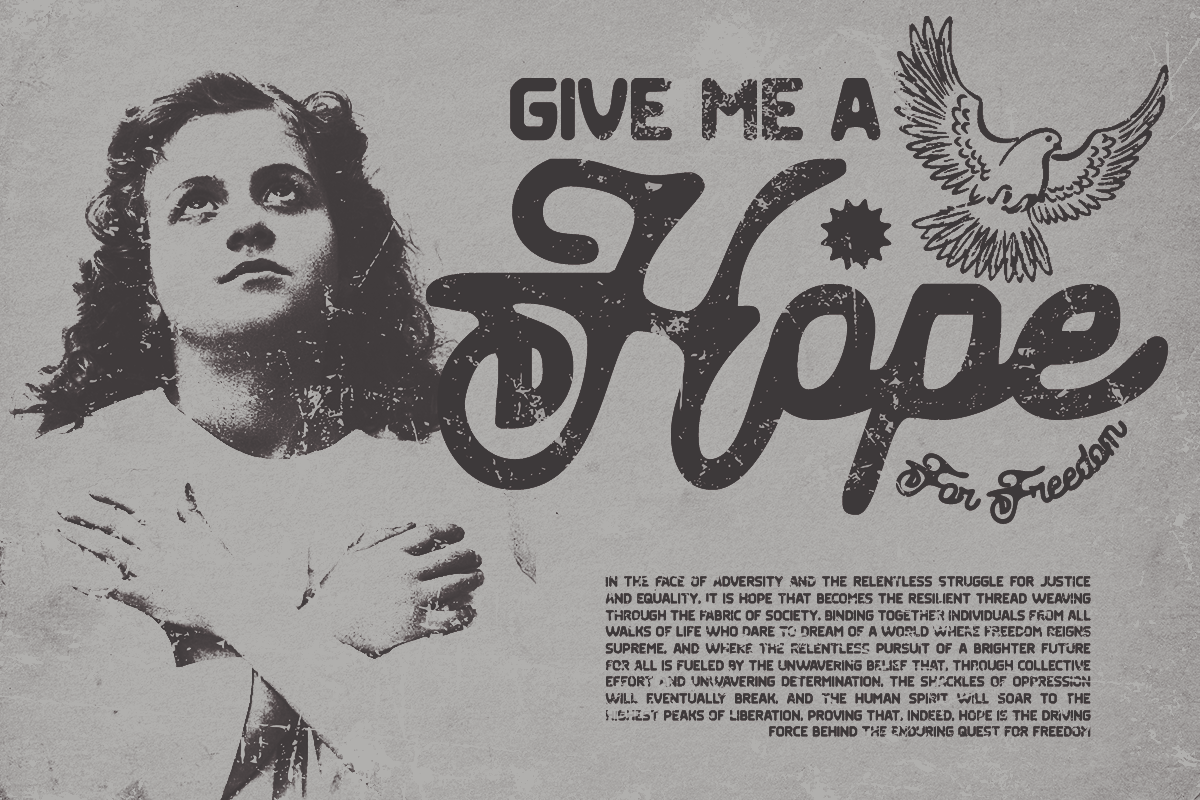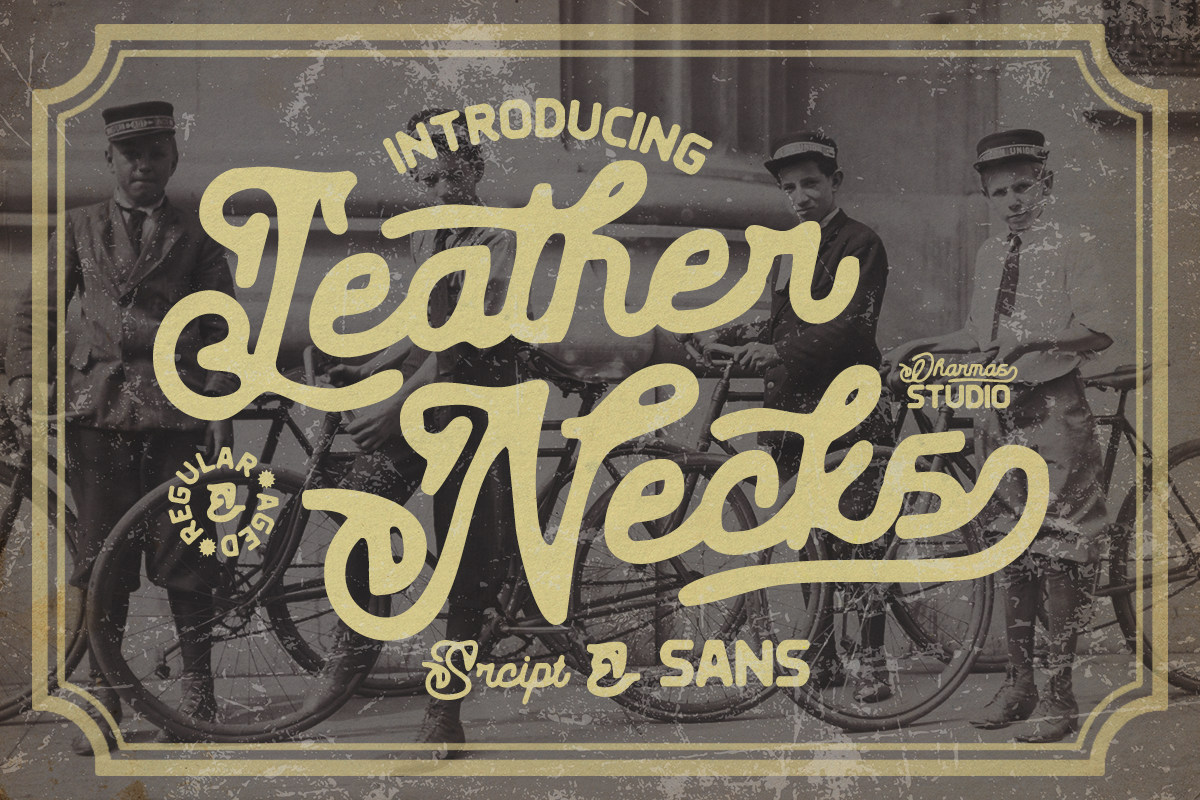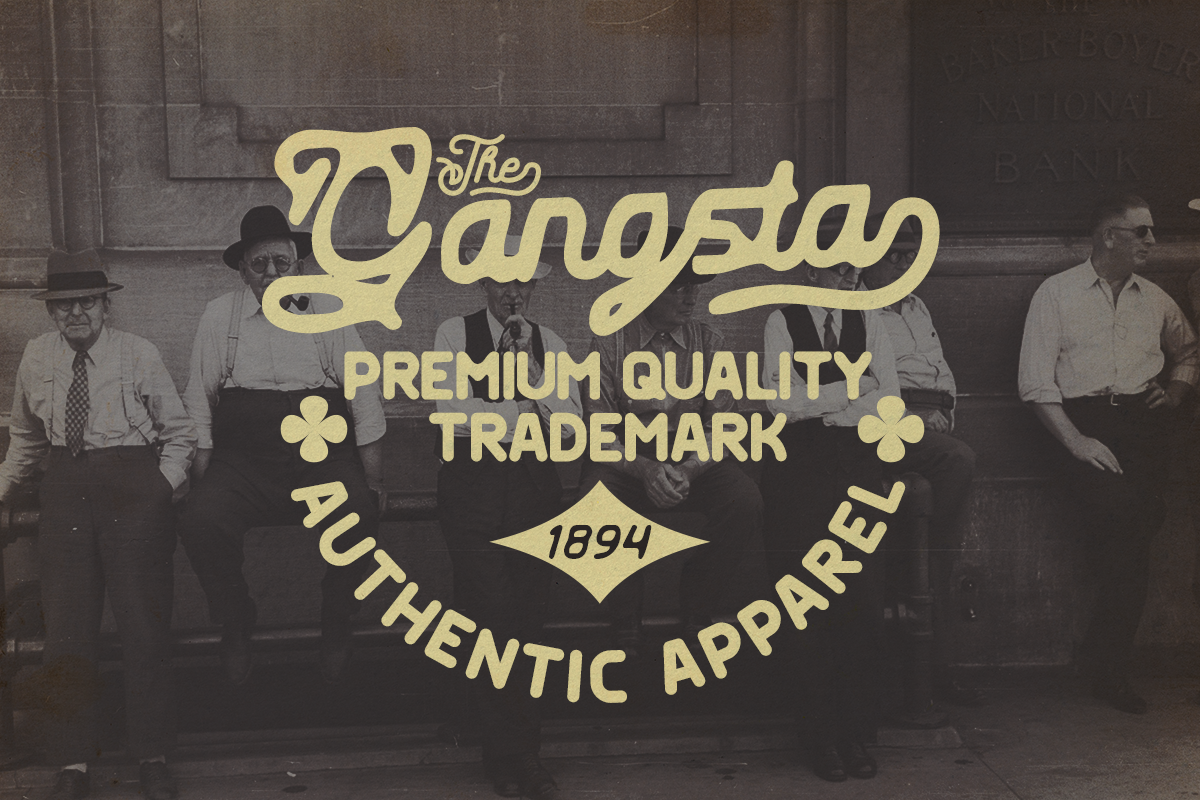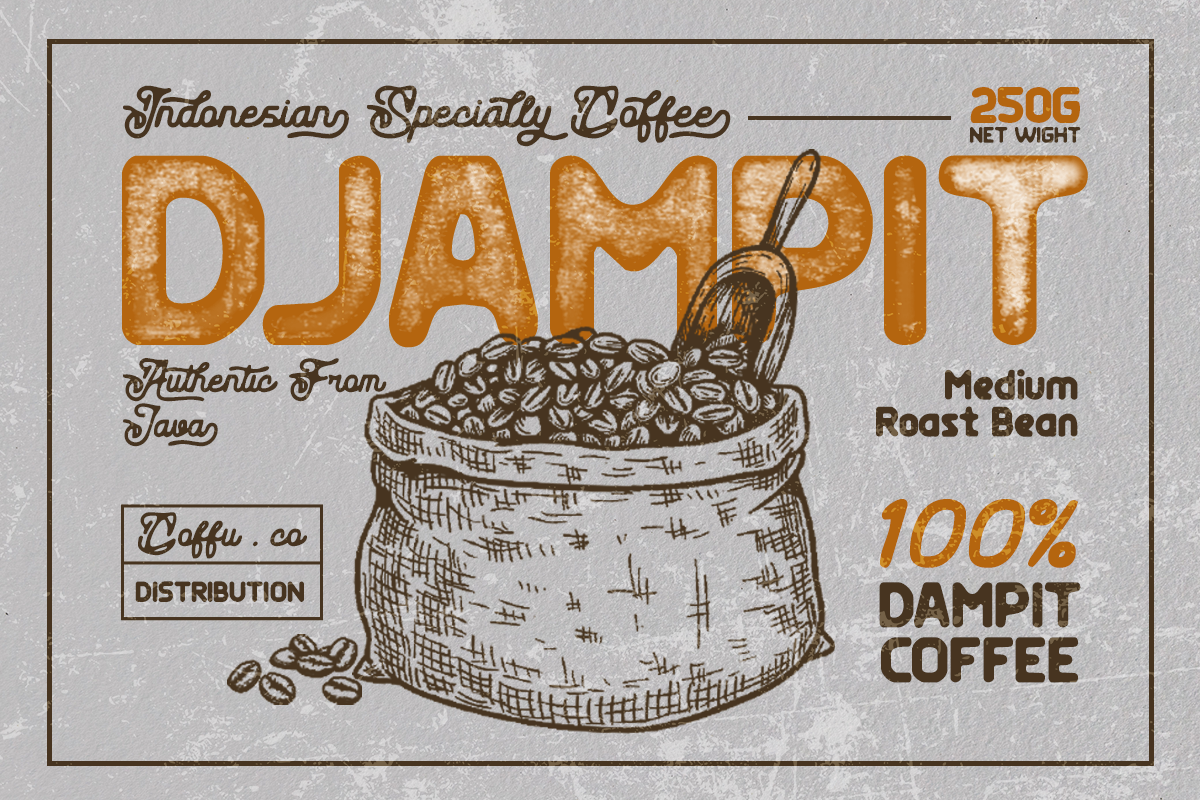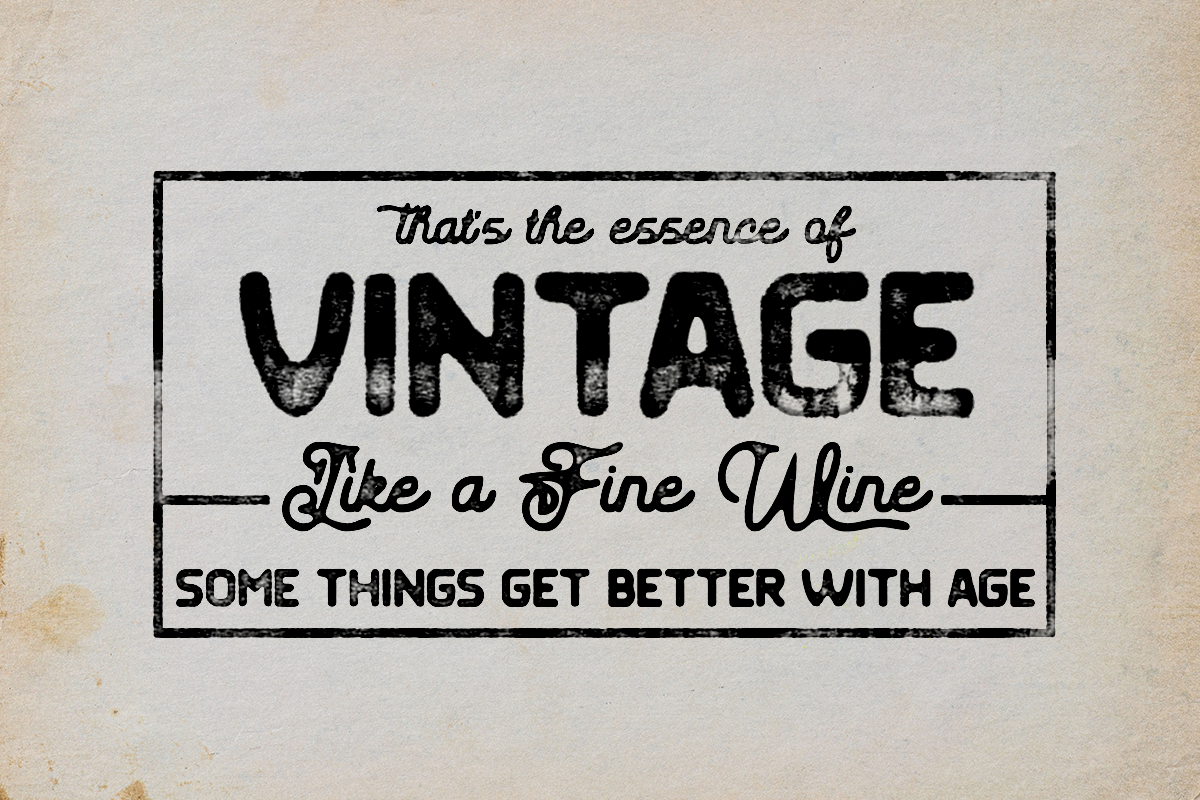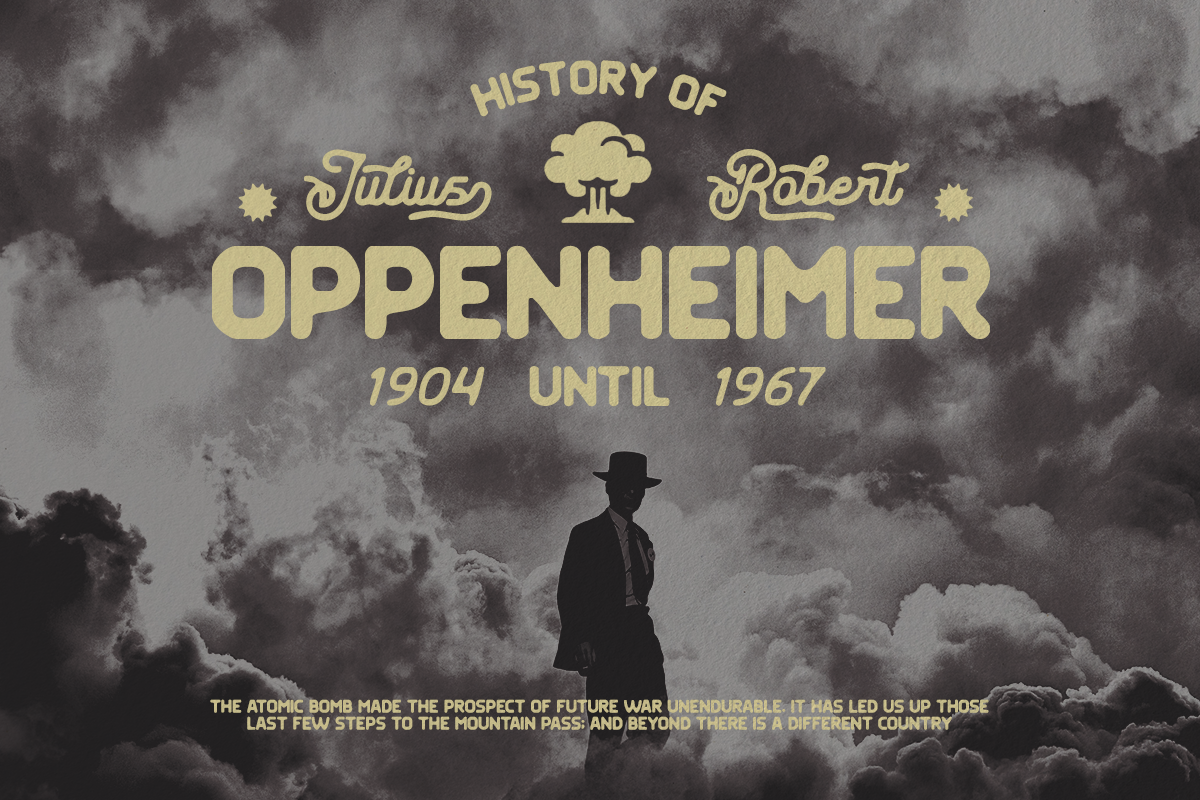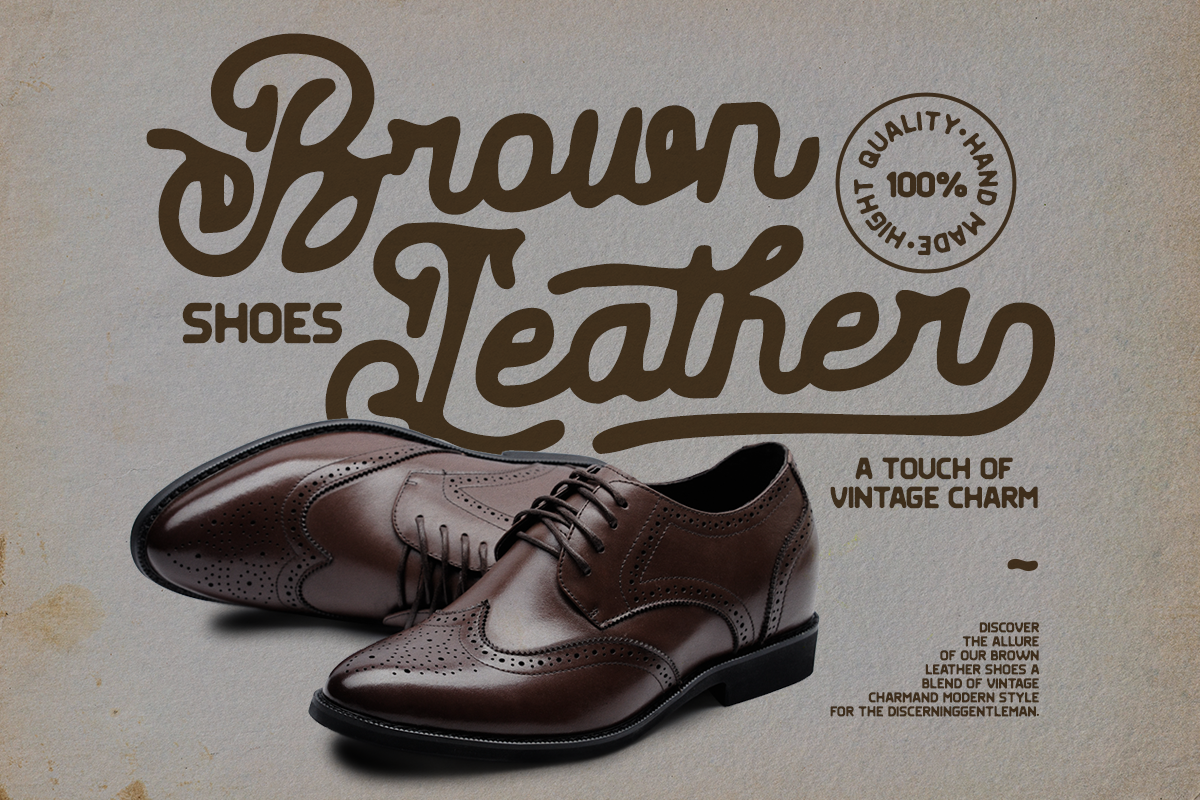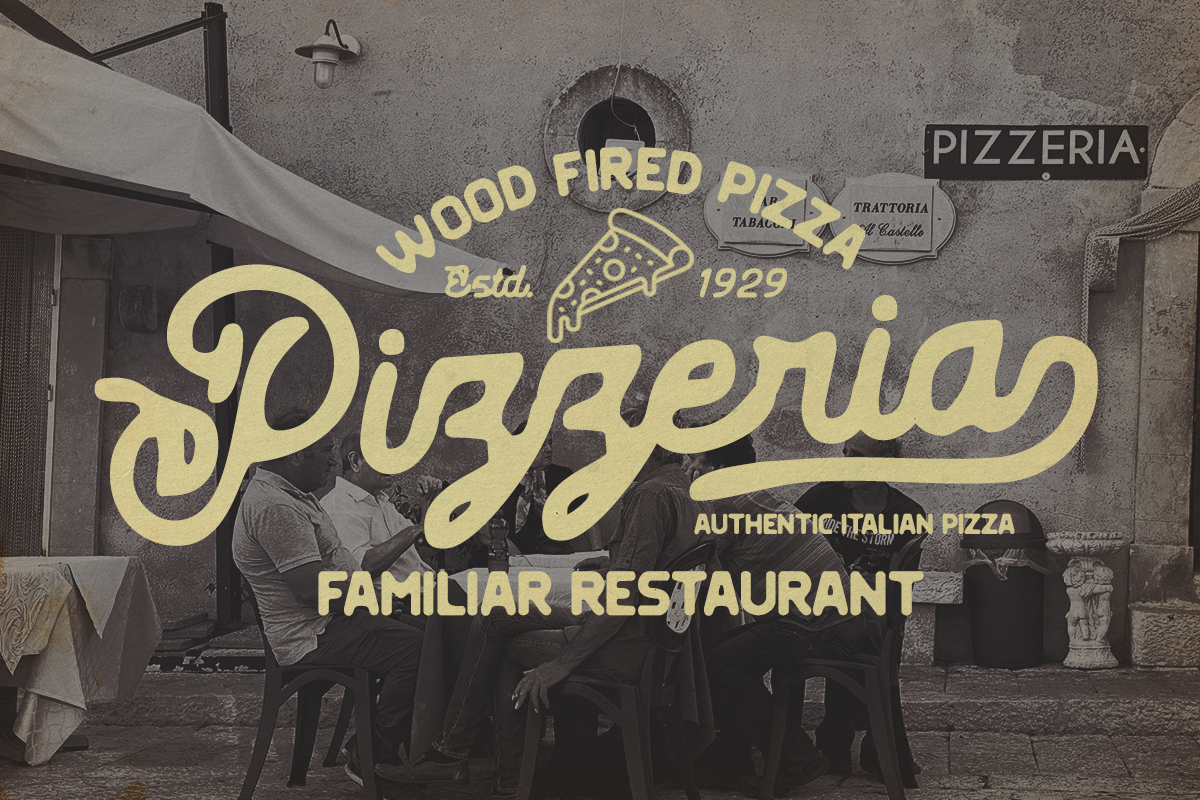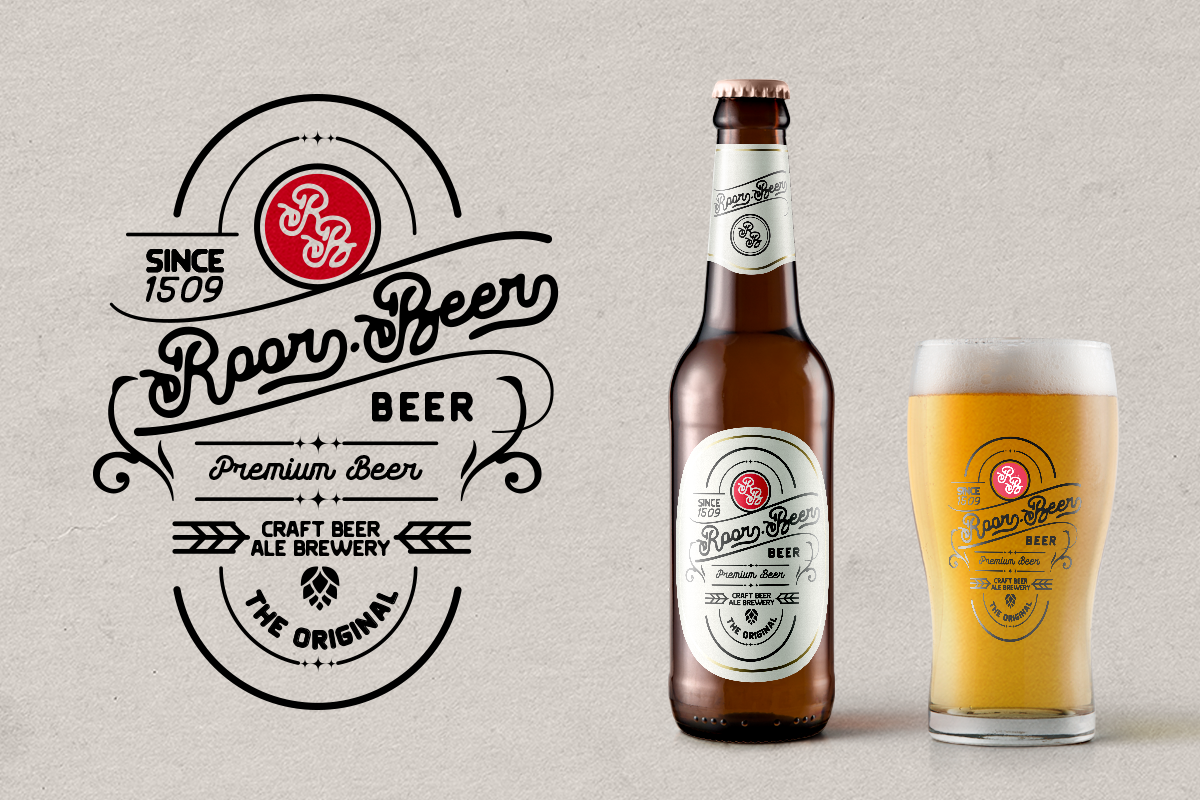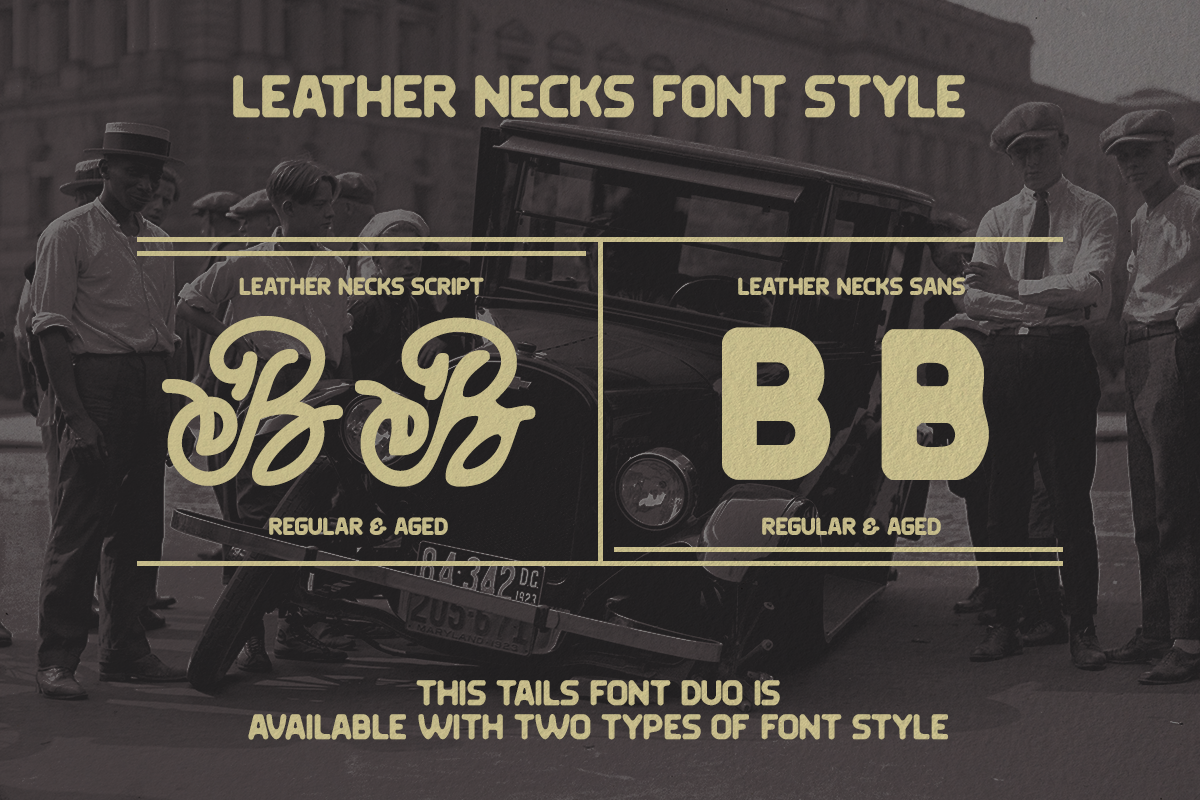
Leather Necks - Vintage Font Duo
Introducing LEATHER NECKS, a font born from the heart of traditional sign painting and American typography
With 2 styles, Regular and Aged, in both Script and Sans families, LEATHER NECKS seamlessly work together, making it ideal for crafting traditional logos, labels, package designs, and stylish t-shirt lettering.
This font offers clean and aged versions, along with captivating features like alternates, ligatures, and swashes. Plus, it embraces the global stage with its multilingual support, including Western European characters.
- Has 2 Family: Script and Sans
- Has 2 Styles: Regular and Aged
- Unique Letterforms
Dive into the nostalgia of classic Americana with LEATHER NECKS!